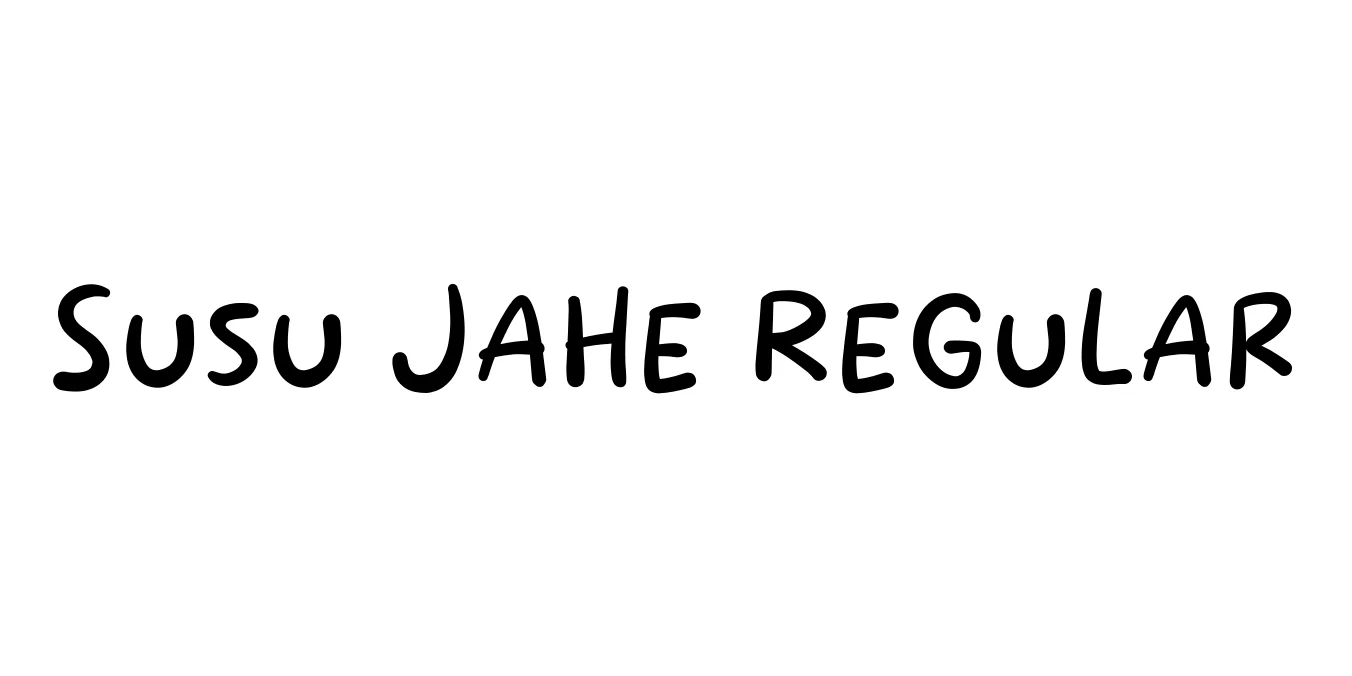
Susu Jahe Regular
Designed by Gisilla
| Font Name | Susu Jahe |
| Category | Handwritten |
| Designer | Gisilla |
Susu Jahe Regular is a charming handwritten typeface that captures the warmth and comfort of its namesake traditional Indonesian ginger milk drink. Designed by Gisilla, this font features rounded strokes and an organic flow that mimics natural penmanship. Its friendly and approachable appearance makes it an ideal choice for projects requiring a touch of human personality and casual elegance.
The font is particularly effective for branding and packaging within the food and beverage industry, as well as for greeting cards and vibrant social media graphics. Susu Jahe Regular offers a balanced rhythm between its characters, ensuring readability while maintaining a playful and artisanal aesthetic that stands out in contemporary design layouts.
Susu Jahe Regular Best Uses
Excellent for artisanal food labels and organic product branding.
Perfect for catchy Instagram quotes and lifestyle blog headers.
Adds a personal, warm touch to invitations and birthday cards.
Ideal for custom t-shirt designs, tote bags, and stationery.